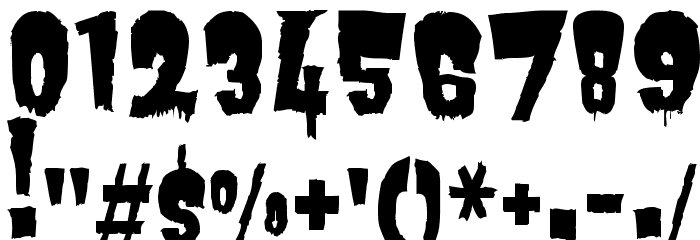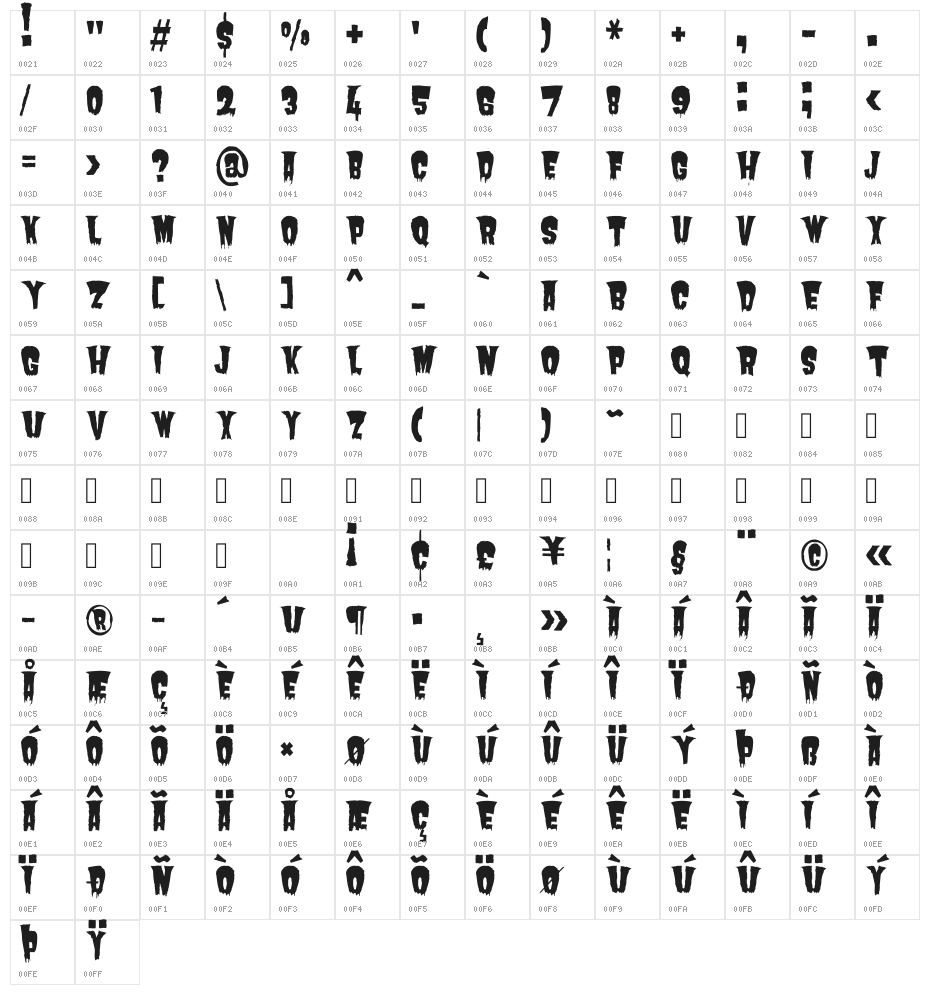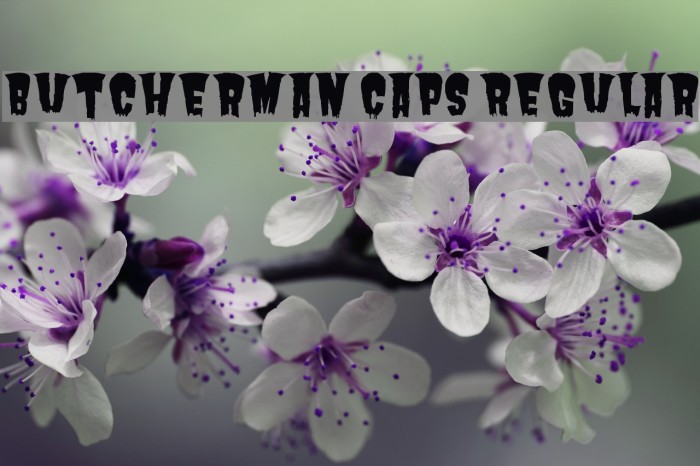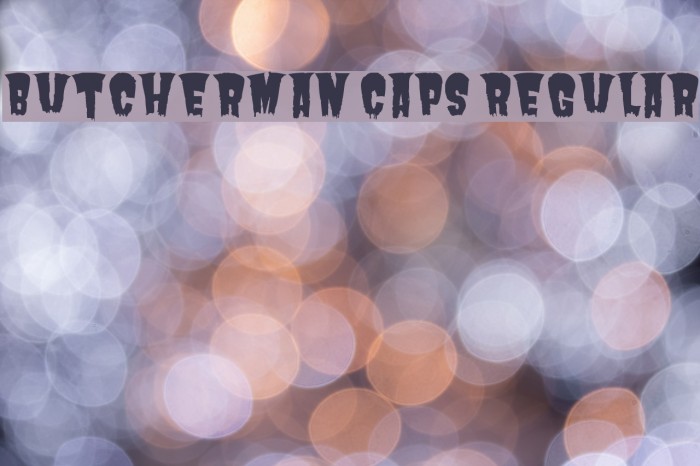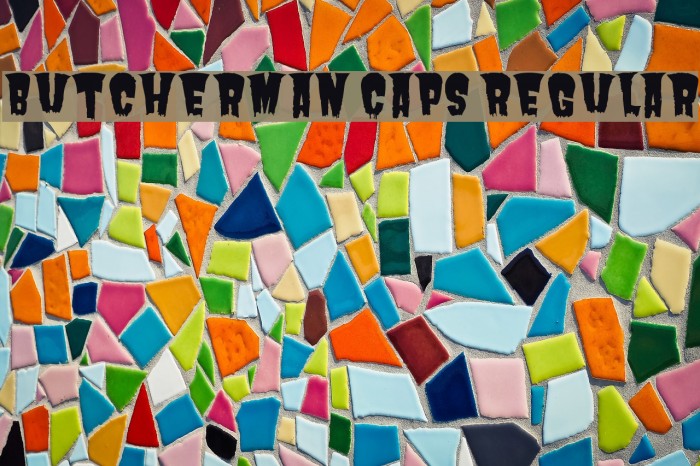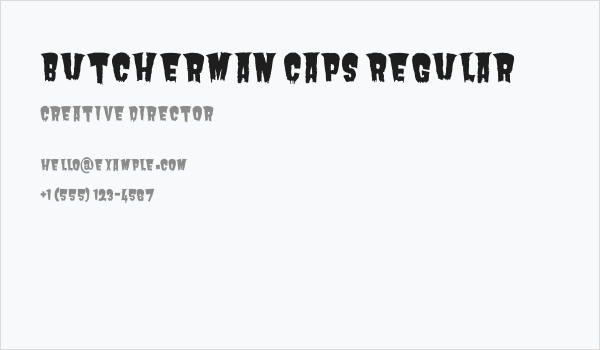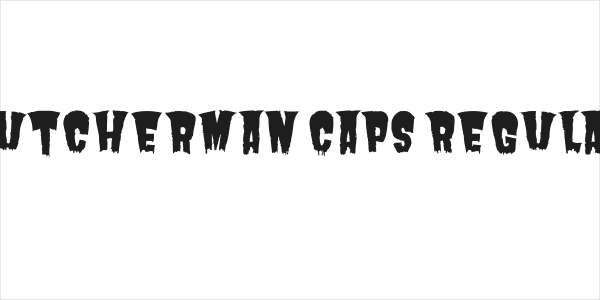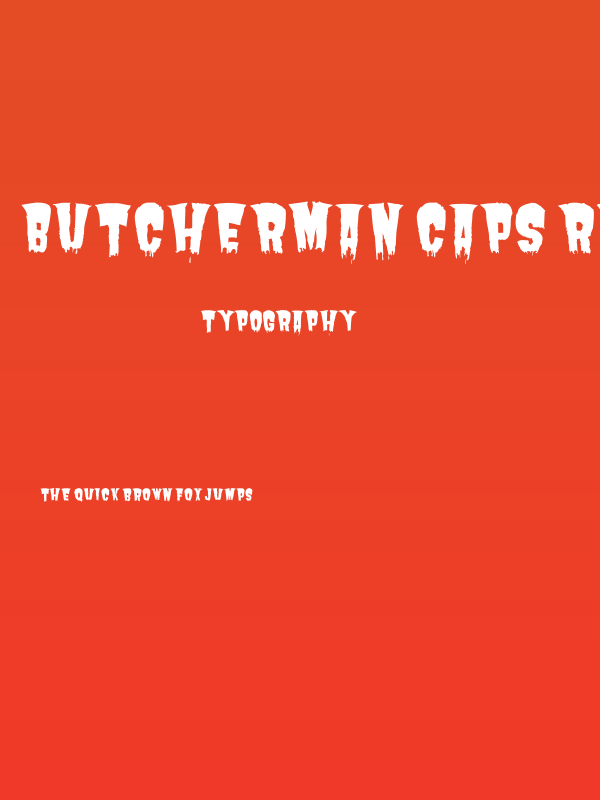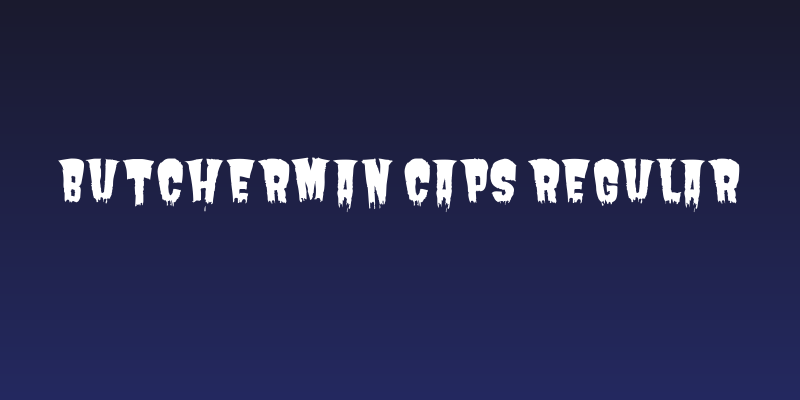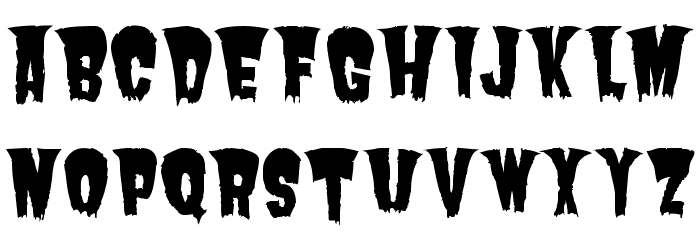
Butcherman Caps Regular Font
Butcherman Caps Regular Description
This font features a bold and dramatic style with a distinct horror-themed aesthetic. Each character appears as if it is dripping or melting, creating a sense of unease and tension. The uppercase letters are particularly striking, with jagged edges and irregular shapes that enhance the eerie effect. The numbers and special characters maintain this unsettling design, making the font ideal for projects that require a spooky or Halloween-inspired look. Its unique appearance ensures that it stands out, capturing attention with its unconventional and artistic flair.
| Proposed Projects | Ideal for Halloween posters, horror movie titles, haunted house flyers, and themed event invitations. |